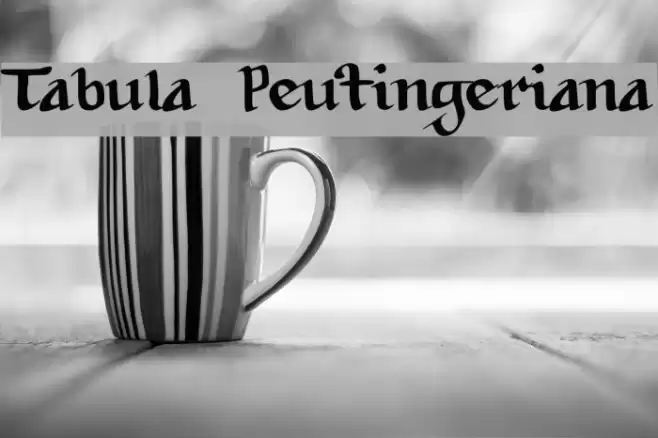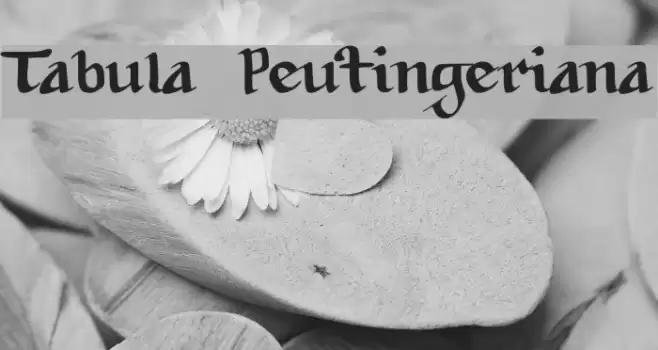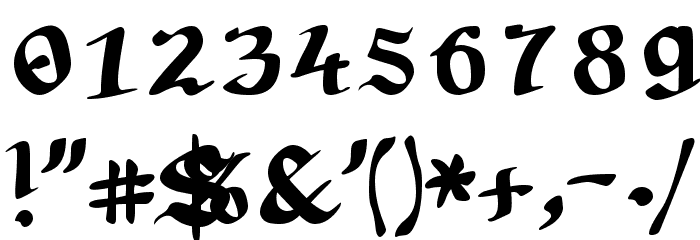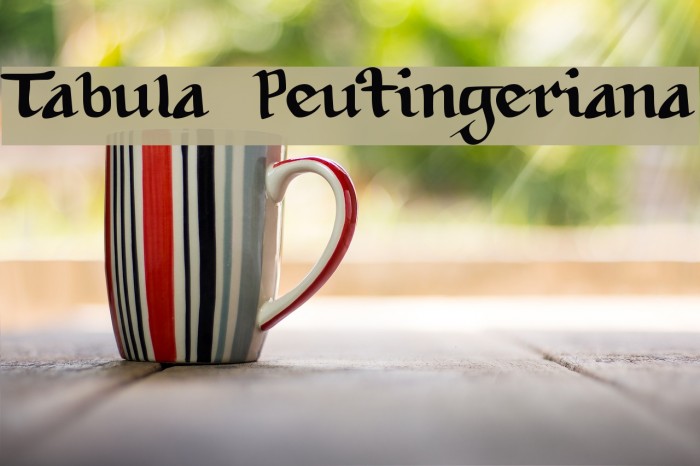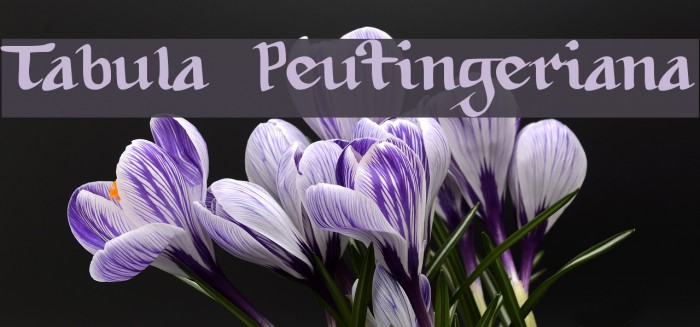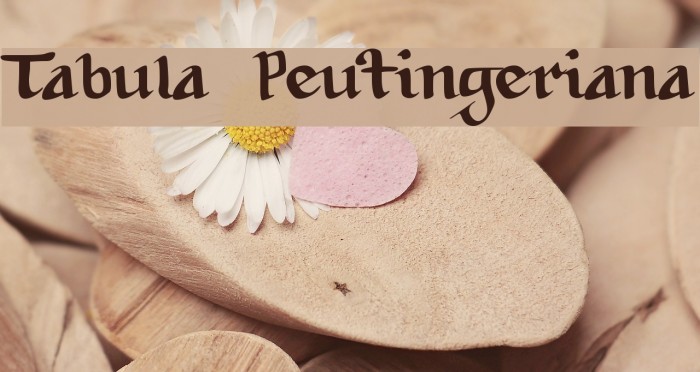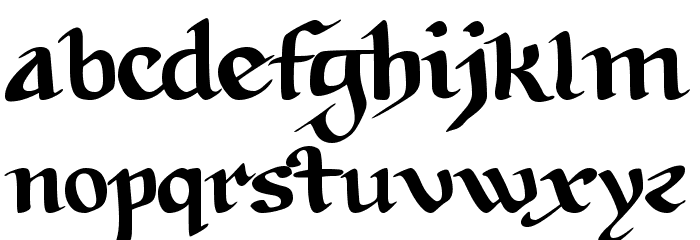
Tabula Peutingeriana Font
Tabula Peutingeriana Description
This font exhibits a bold and expressive style with a strong calligraphic influence. The characters are characterized by their dramatic strokes and sharp angles, reminiscent of historical scripts. The uppercase letters are particularly striking, with a sense of movement and flair that suggests a handwritten quality. The lowercase letters maintain this dynamic style, offering a consistent and cohesive look. The numerals and special characters are equally bold, ensuring readability while maintaining the overall aesthetic. This font's unique style makes it stand out, offering a blend of traditional and artistic elements.
A bold, calligraphic font with dramatic strokes and a historical script influence from Uncategorized fonts.